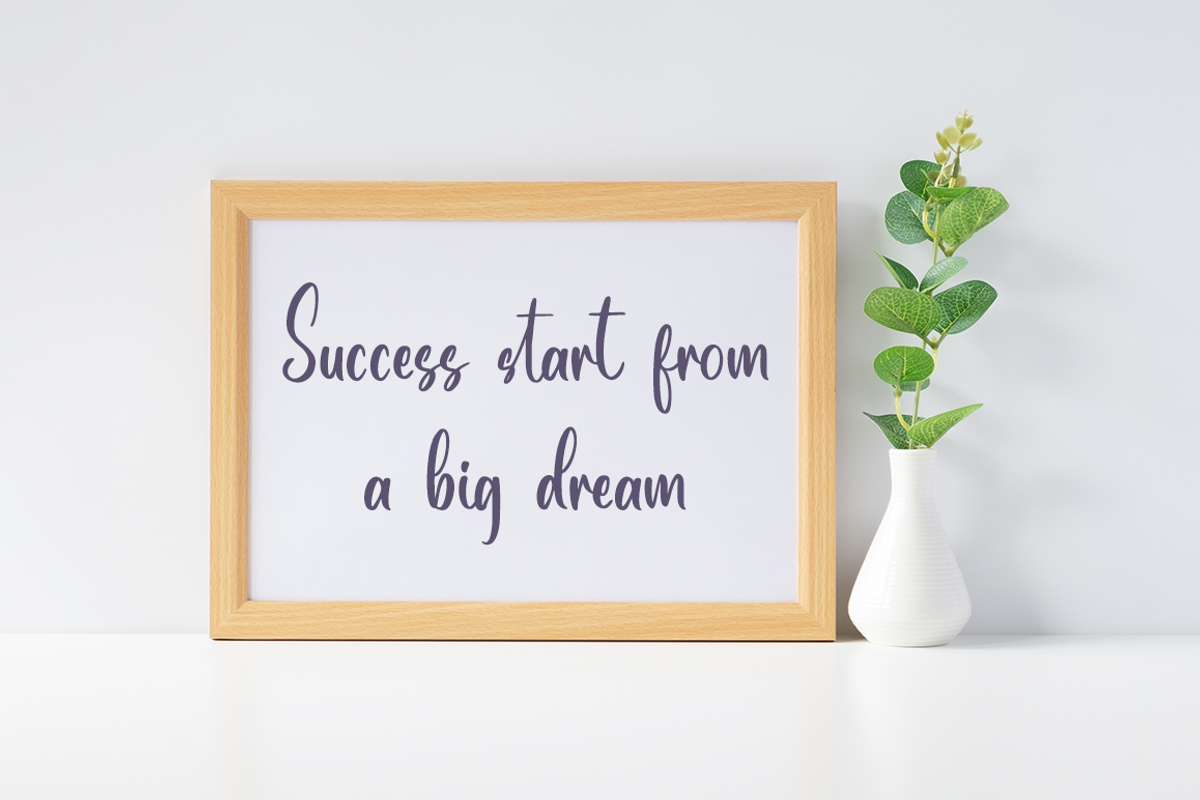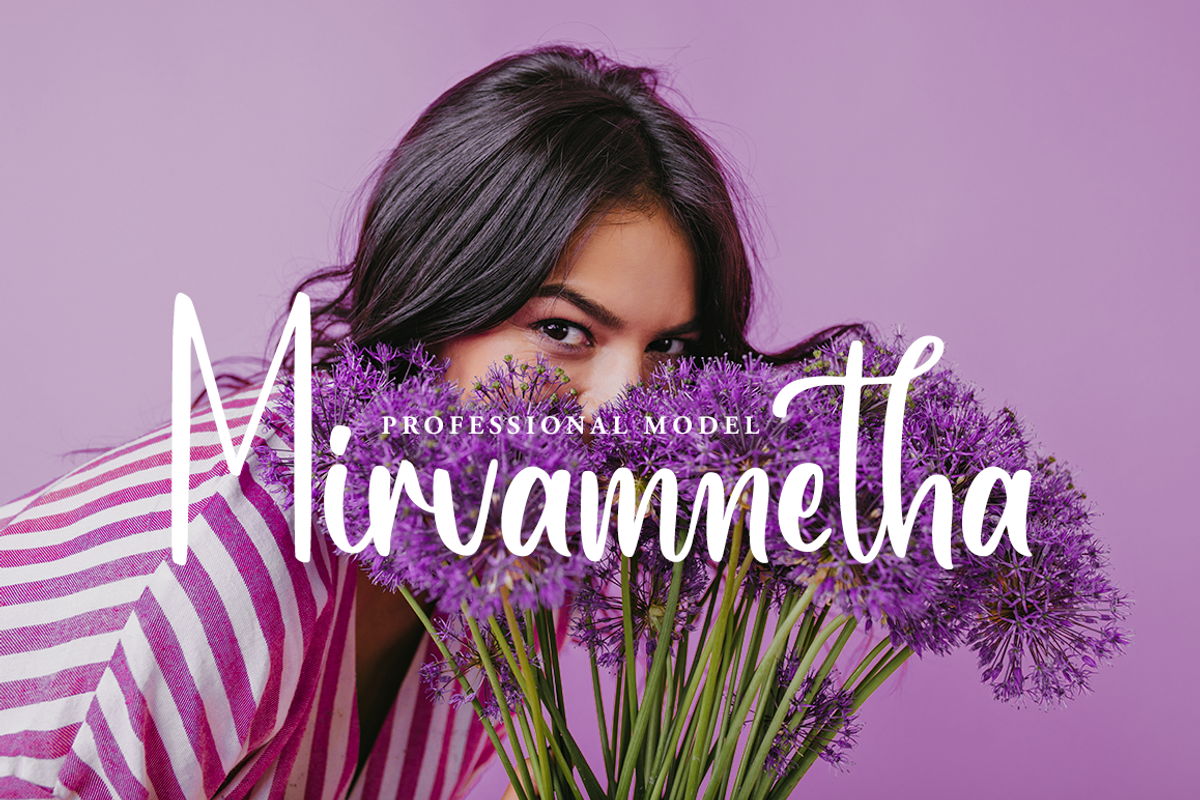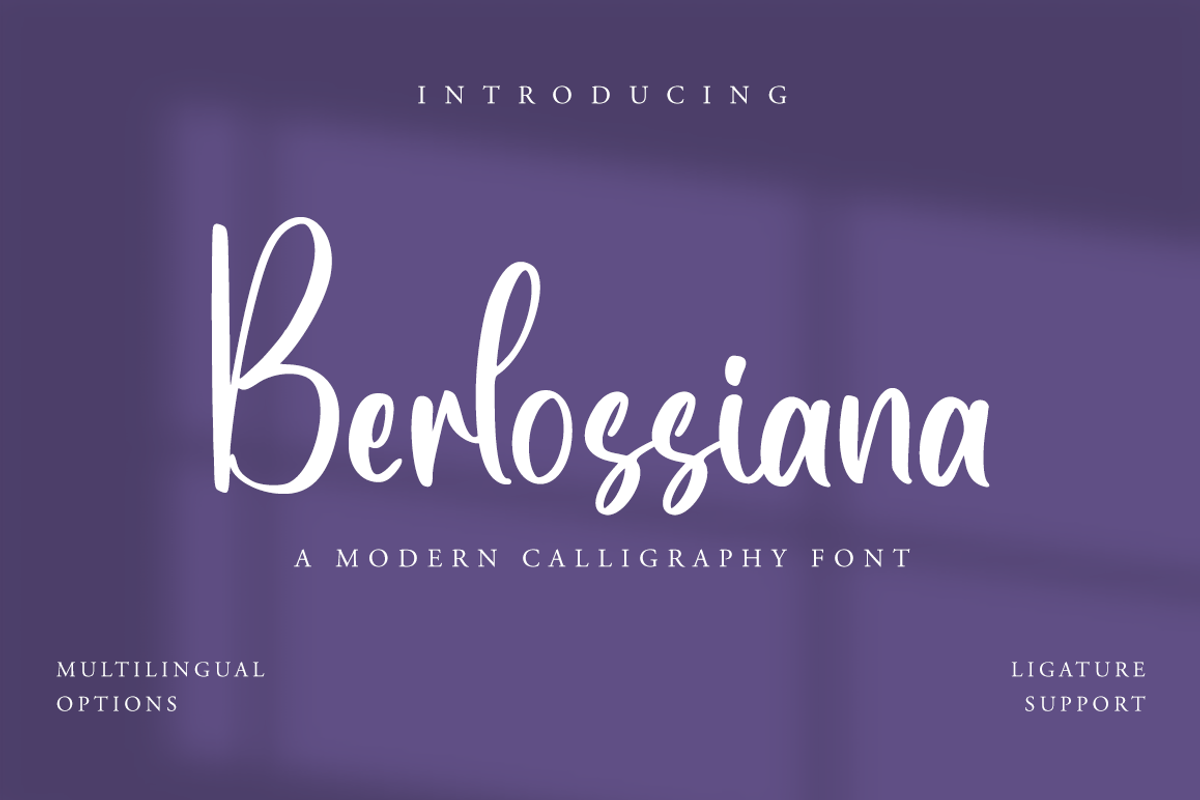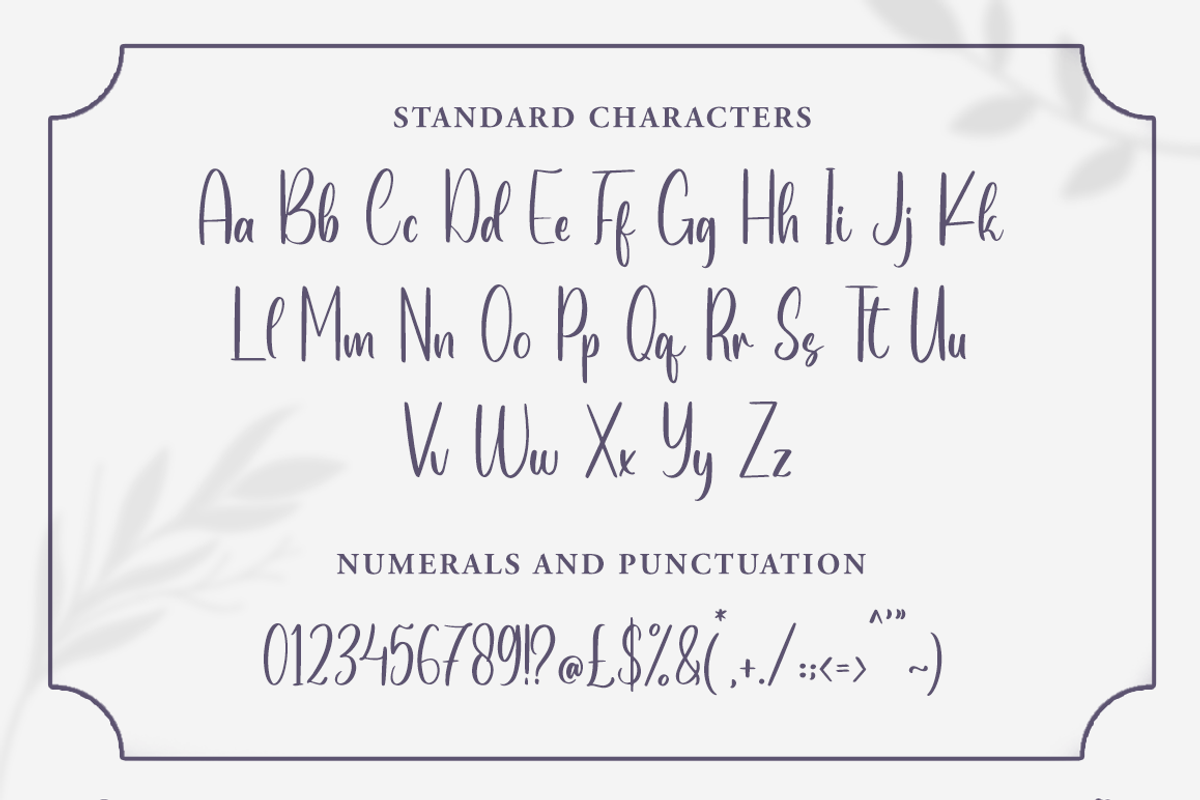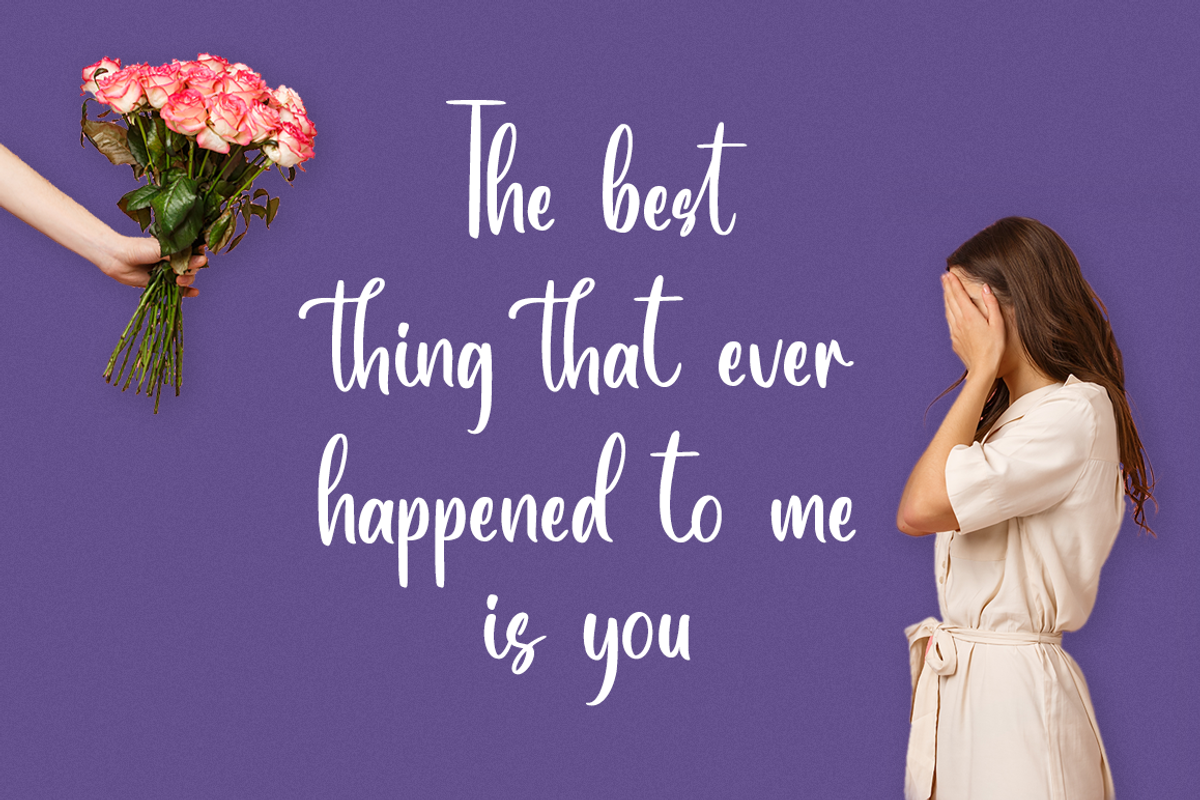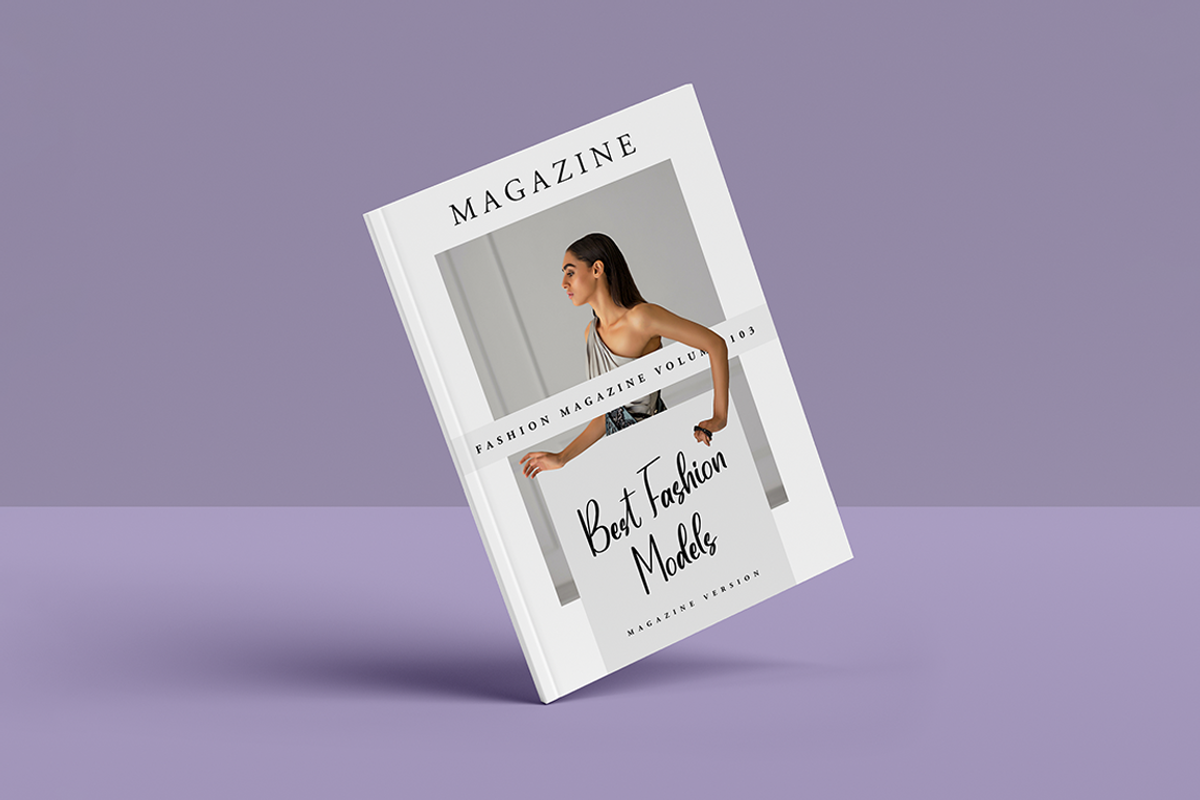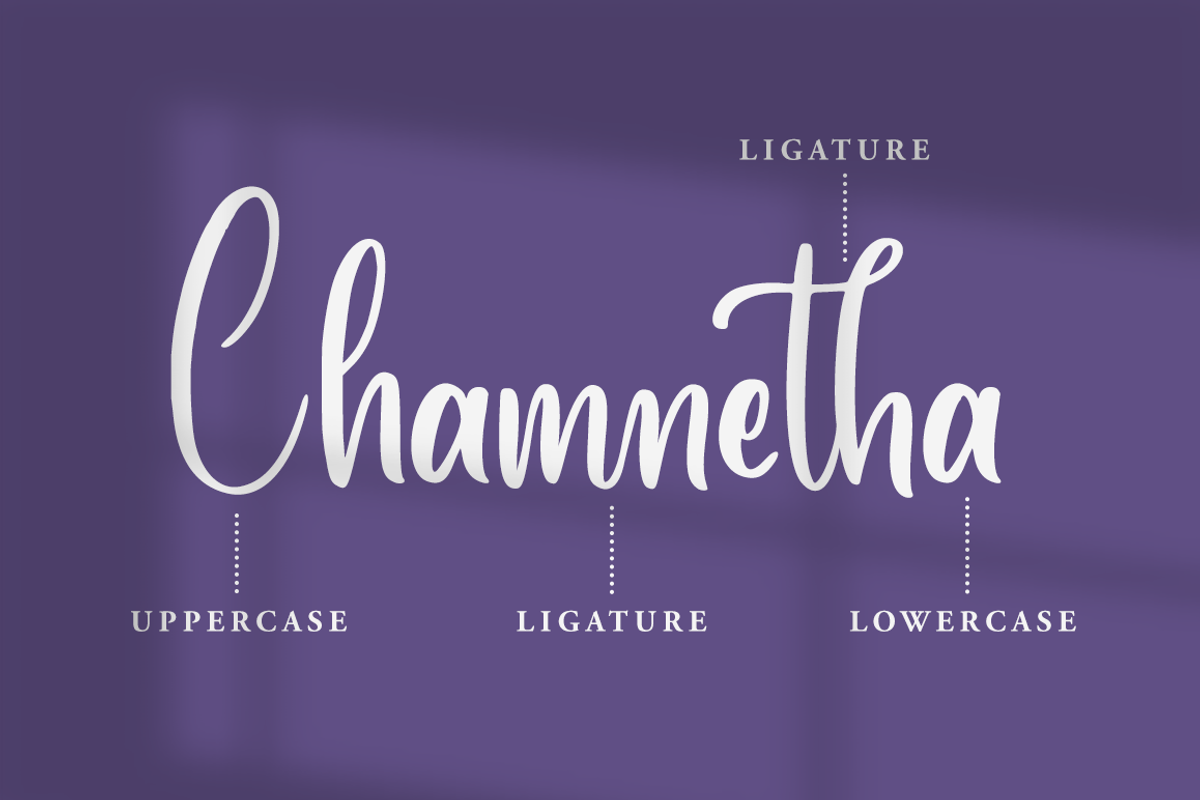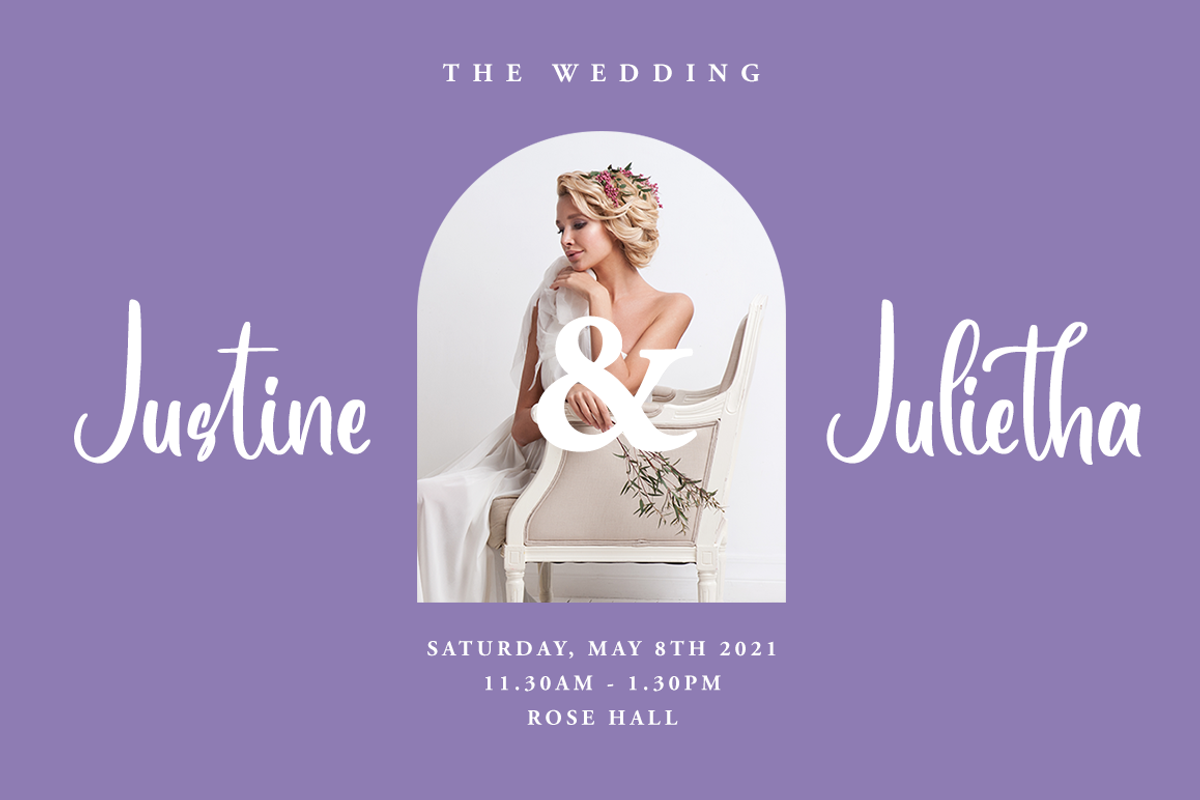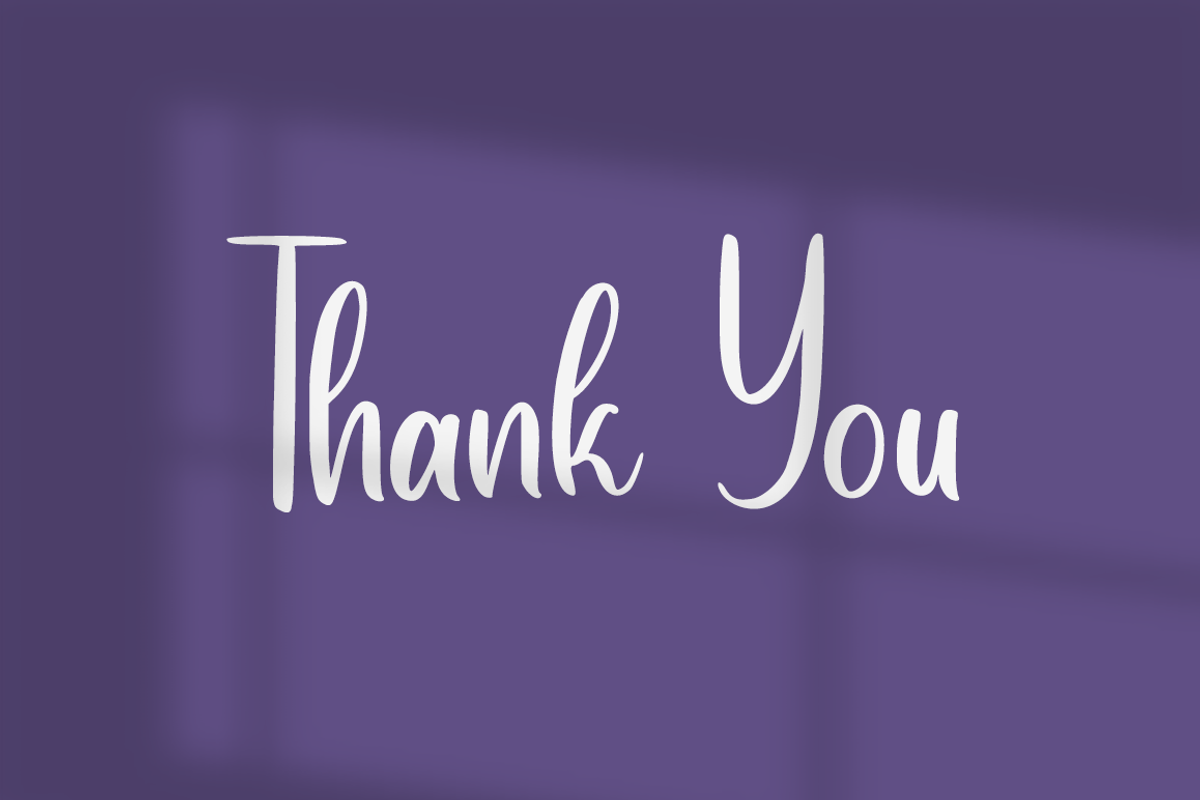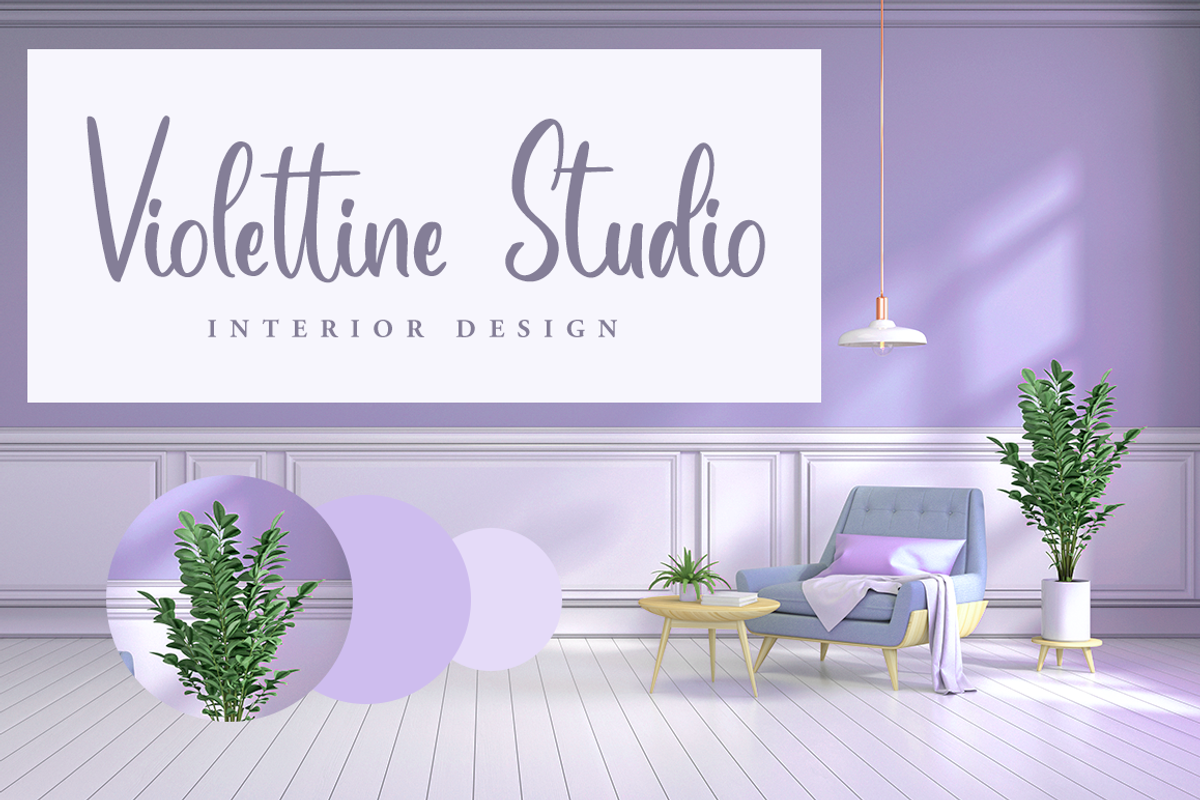
Berlossiana Font
Berlossiana is a beautiful and elegant handwritten font. Its modern and classy look makes this typeface the perfect choice for creating outstanding DIY projects!